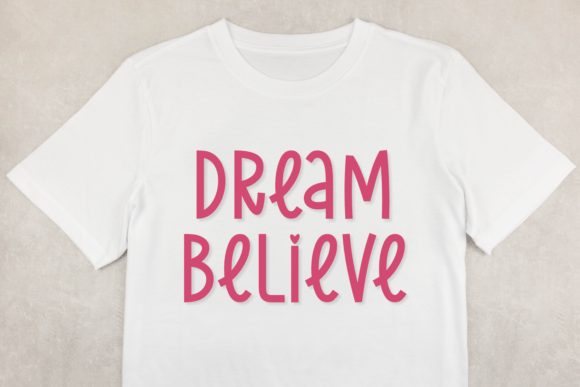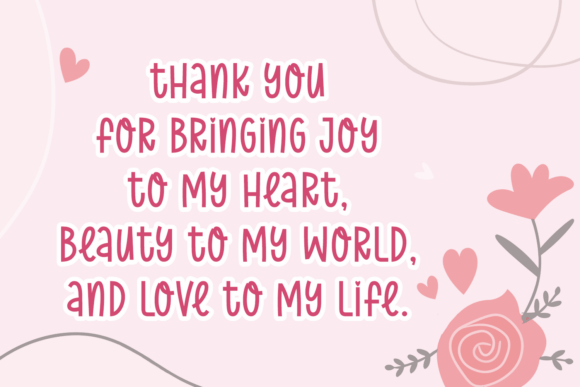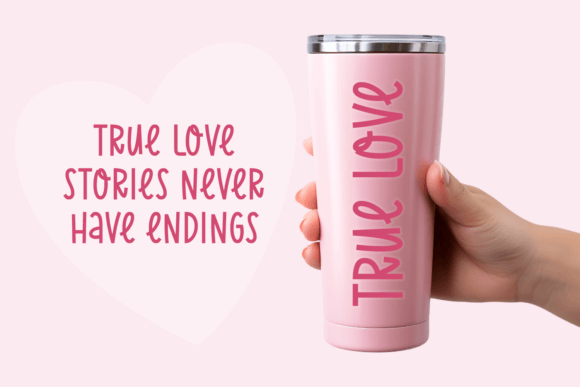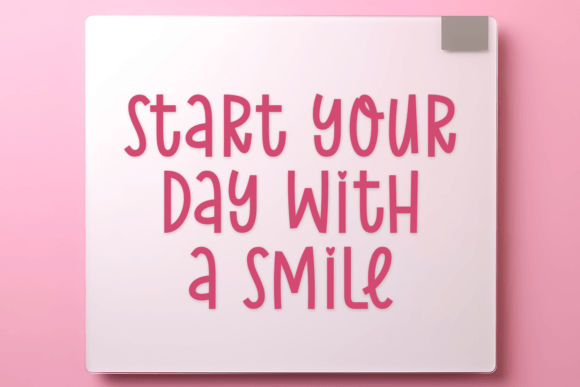
When Words Speak from the Heart
Who hasn’t scribbled a love letter or a heartfelt note to their partner, hoping to express the depth of their emotions? For designers, capturing the essence of love and romance in a single design element can be a challenge. That’s where the Awesome Romantic Font comes in – a playful handwritten font that brings a touch of whimsy and charm to any design.
This font is specifically designed to evoke a sense of fun and love, making it perfect for wedding invitations, love notes, and cheerful designs. With its bouncy letters and charming curves, the Awesome Romantic Font adds a personal touch to any project, giving words a warm and friendly feel. For designers, this font is a valuable asset, allowing them to convey emotions and sentiments in a unique and captivating way.
Awesome Romantic Font Key Features
- Font Family: A unique, hand-drawn font with a romantic flair, perfect for wedding invitations, love letters, and other sentimental designs.
- Character Set: Includes over 500 glyphs, including Latin, Cyrillic, and Greek alphabets, as well as various punctuation marks and symbols.
- Unique Characteristics: Features elegant swashes, flourishes, and ornaments, adding a touch of whimsy and romance to any design.
Awesome Romantic Font Review
At first glance, I was charmed by the whimsical feel of the Awesome Romantic Font. ✨ The flowing curves and elegant lines give off a romantic and vintage vibe that’s perfect for any love story or fairy tale-inspired design. The font’s versatility makes it suitable for a range of applications, from wedding invitations to children’s books.
However, upon closer inspection, I noticed a few limitations. ⚠️ For one, the font can be quite ornate, making it challenging to read in smaller sizes or when used extensively throughout a design. Additionally, the font’s uniqueness can sometimes feel overwhelming, making it difficult to pair with other typography without creating visual clutter.
- ✨ Elegant and flowing curves
- ✨ Versatile and suitable for various applications
- ✨ Whimsical feel that evokes a romantic and vintage vibe
- ⚠️ Can be challenging to read in smaller sizes
- ⚠️ Difficult to pair with other typography without creating visual clutter
The Awesome Romantic Font is a beautiful and unique addition to any designer’s toolkit. While it may have some limitations, its versatility and charm make it a great choice for designers looking to add a touch of romance and whimsy to their designs. With careful use and attention to legibility, this font can add a magical touch to any project.
Awesome Romantic Font: A Practical Application Guide
The Awesome Romantic Font is perfect for:
- Valentine’s Day cards and gifts
- Love-themed social media posts and graphics
- Anniversary and birthday celebrations